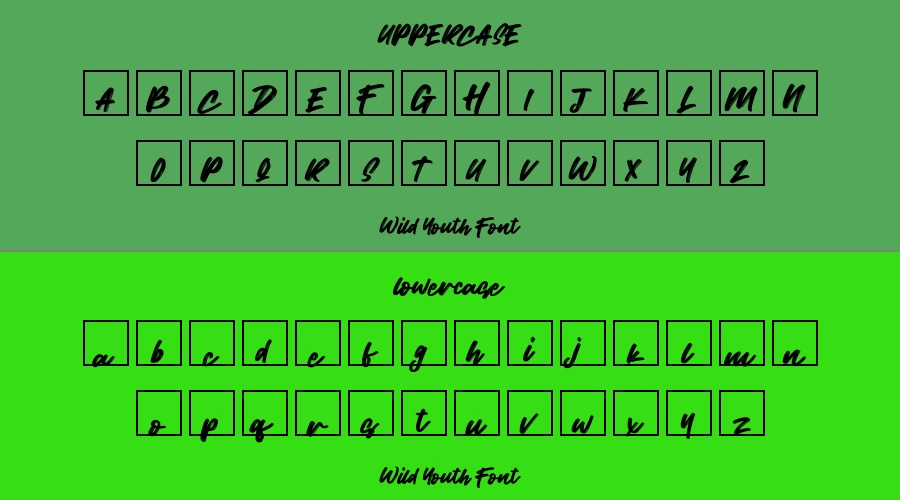
About Wild Youth Font
When typographic excellence matters most, Wild Youth Font delivers through its thoughtful blend of humanist proportions and visual comfort. Specially crafted for academic publications, it offers the clarity and technical excellence required for sophisticated design work. Every detail serves a purpose.
The character set showcases thoughtful details like convex bowls alongside functional traditional styling. This proves especially valuable in traditional announcements, where reproduction fidelity directly influences results. Particular attention was paid to stem weight and emotional appeal during development.